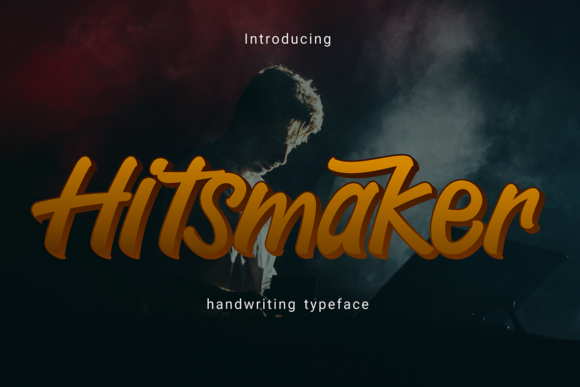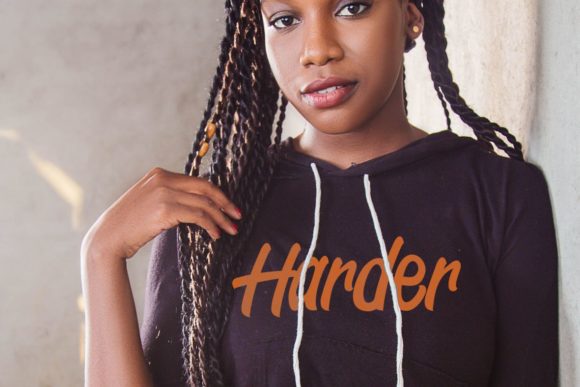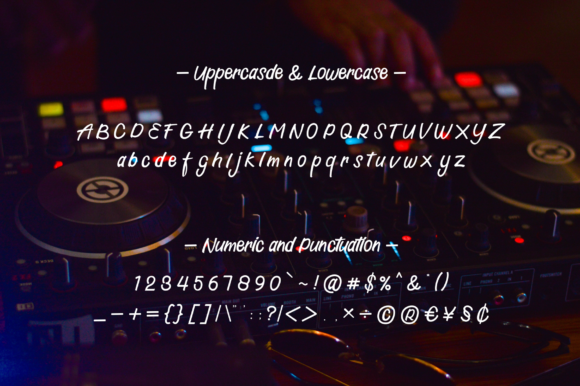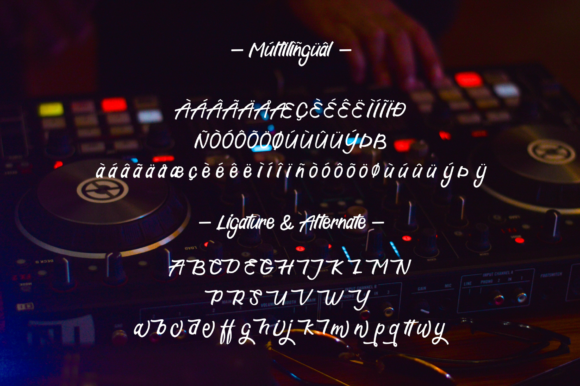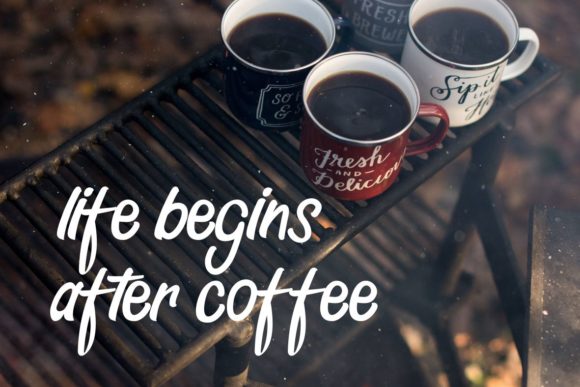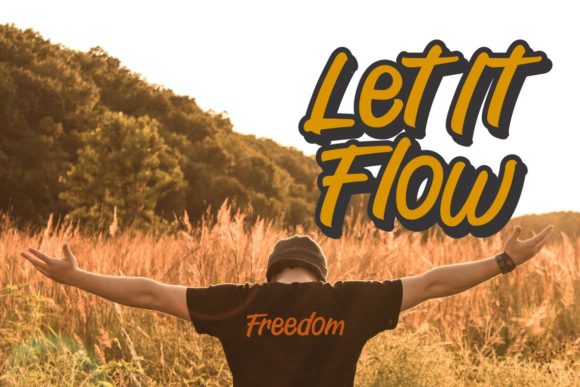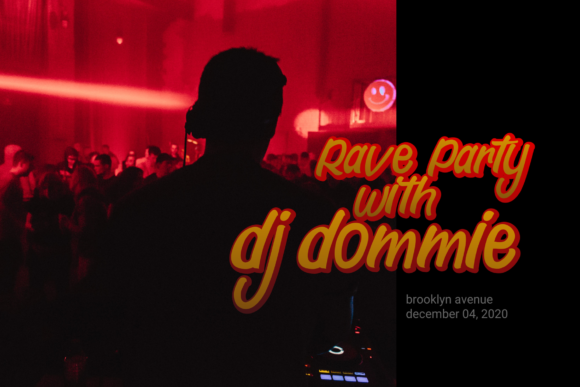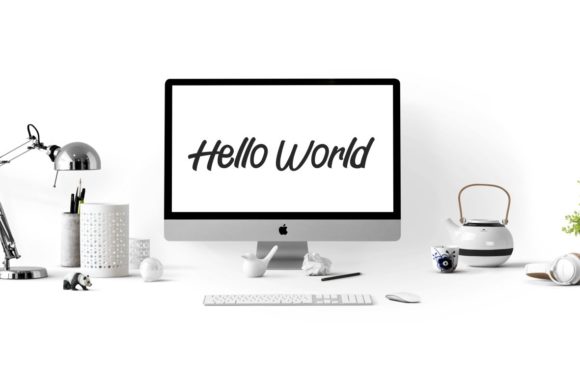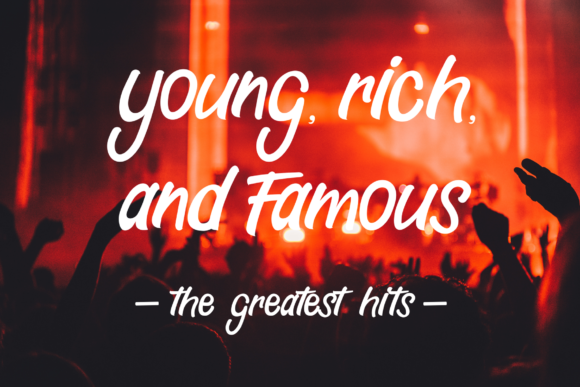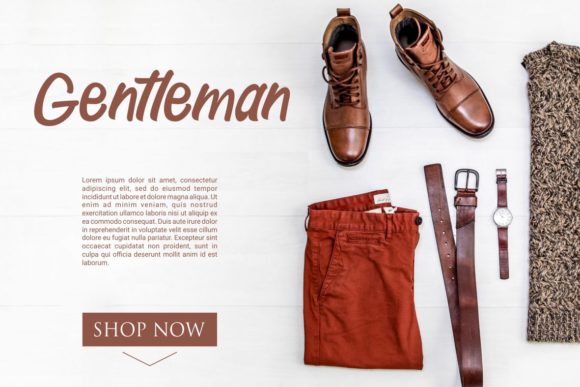
Hitsmaker Font
About Hitsmaker Font
Hitsmaker is a unique and beautiful handwritten font. Due to its versatility, it will look outstanding in any context, whether it’s being used on busy backgrounds or as a standalone headline!